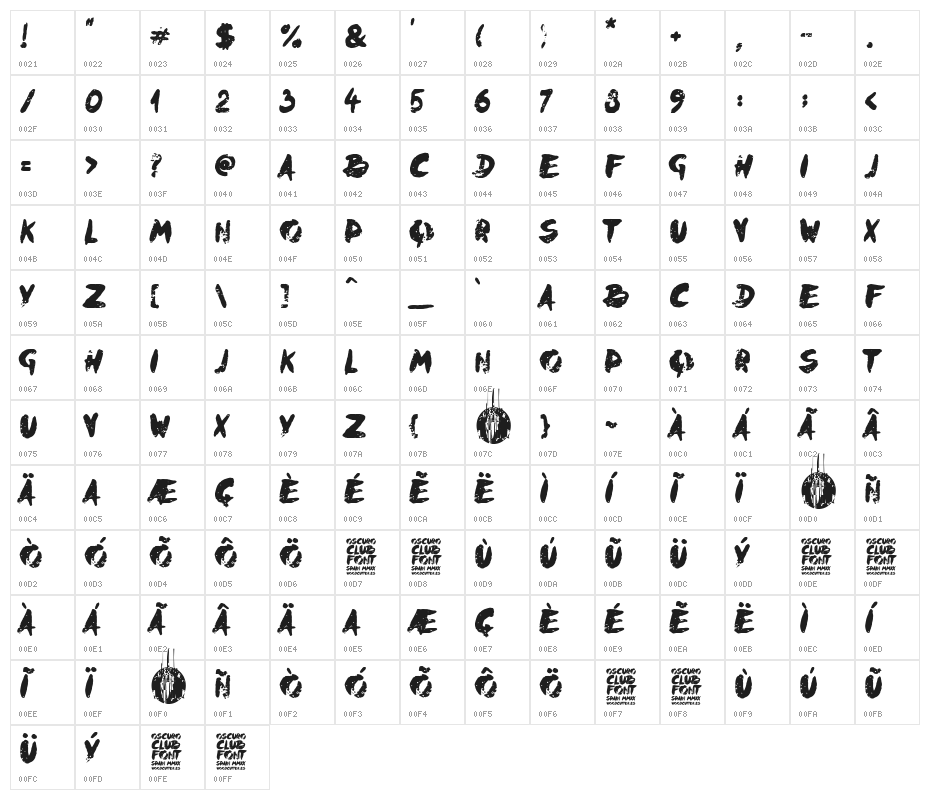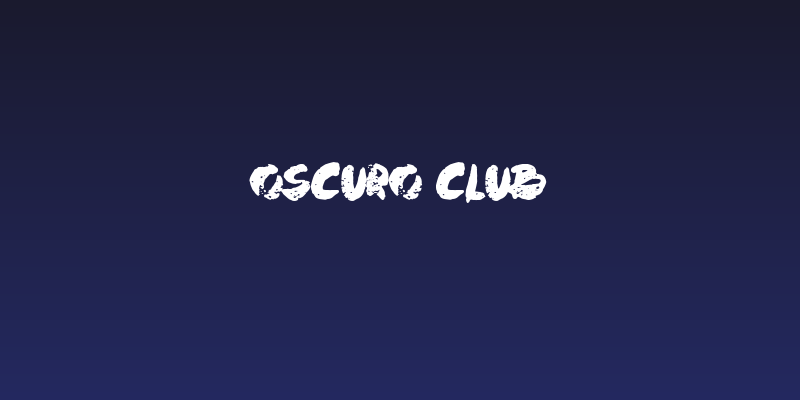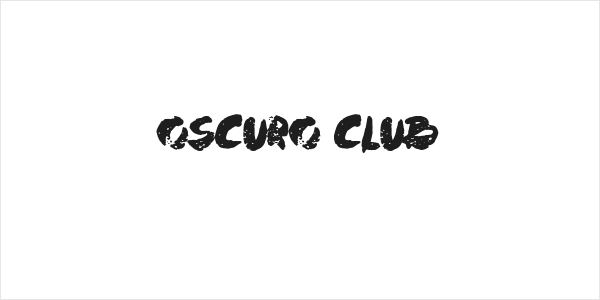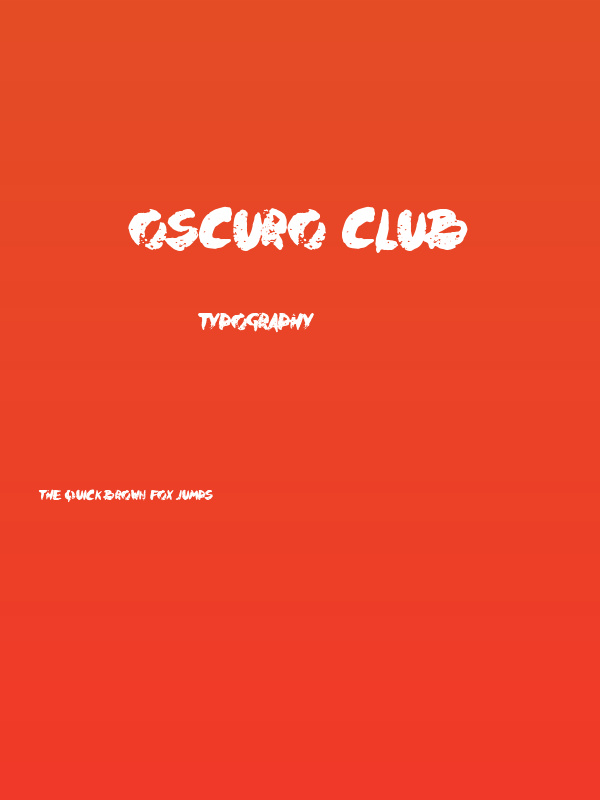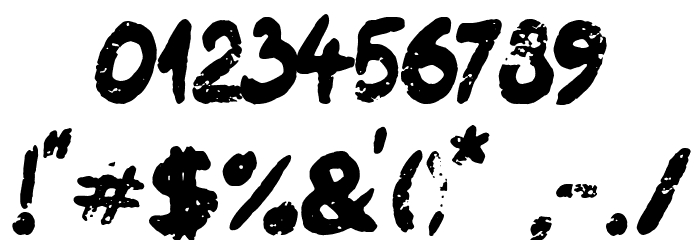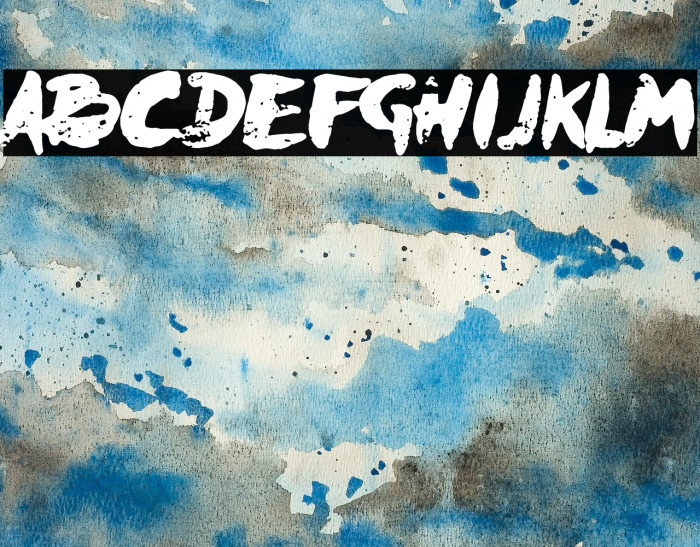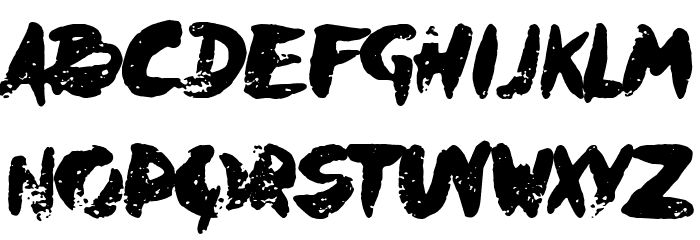
Oscuro Club Font
Oscuro Club Description
This font features a bold, distressed style with a grungy texture that gives it a rugged and edgy appearance. The characters are heavily textured, resembling paint splatters or worn-out surfaces, which adds a dynamic and energetic feel. The uppercase and lowercase letters maintain a consistent weight, contributing to a cohesive look. The numerals and special characters follow the same distressed aesthetic, ensuring uniformity across all glyphs. This font is perfect for projects that require a bold statement or an urban, rebellious vibe.
| Overall Style | Grunge, Urban, Edgy |
| Proposed Projects | Ideal for music album covers, streetwear branding, posters, and event flyers. |